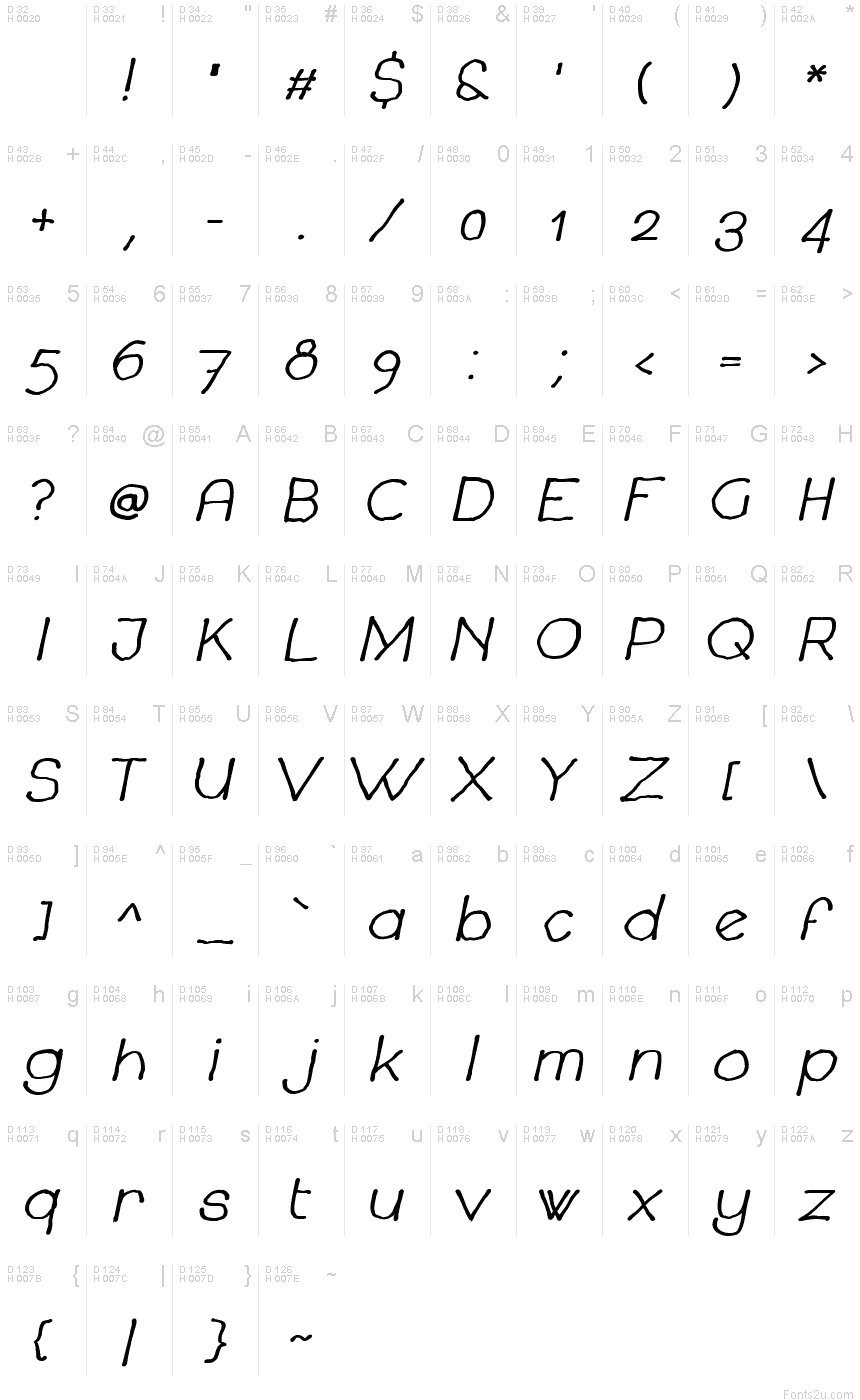
Chavenir Bold Italic by Måns Grebäck is a free handwritten font with tall, loosely drawn letters and a quick felt-pen quality. Stroke widths shift slightly, and the uneven joins keep the forms informal. Several letters lean or stretch unpredictably.
Personal event posters are its strongest setting, with the casual linework also fitting music flyers, handmade packaging, and social graphics. In magazine design, it can turn a pull quote or section opener into a rough note from the page's author.